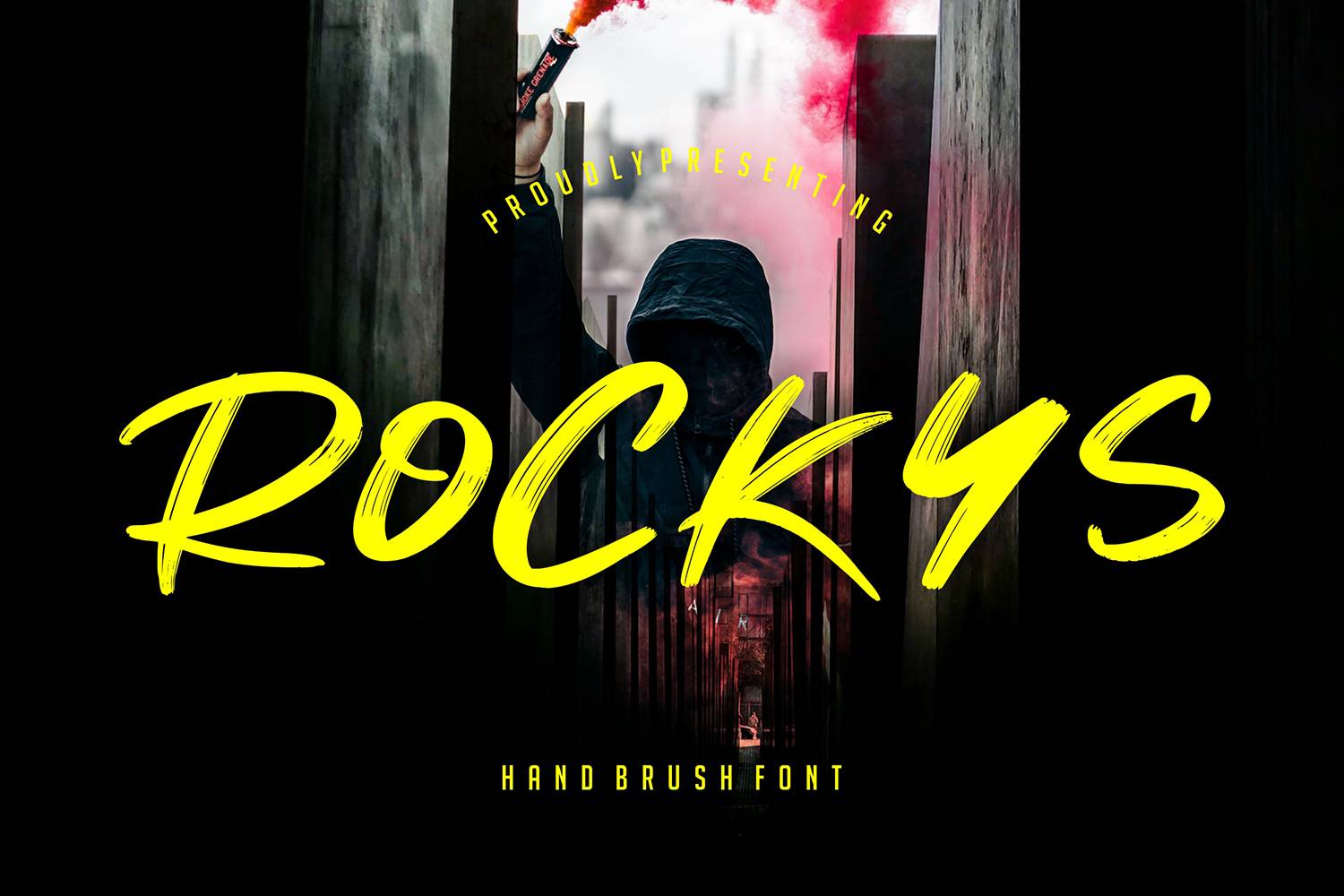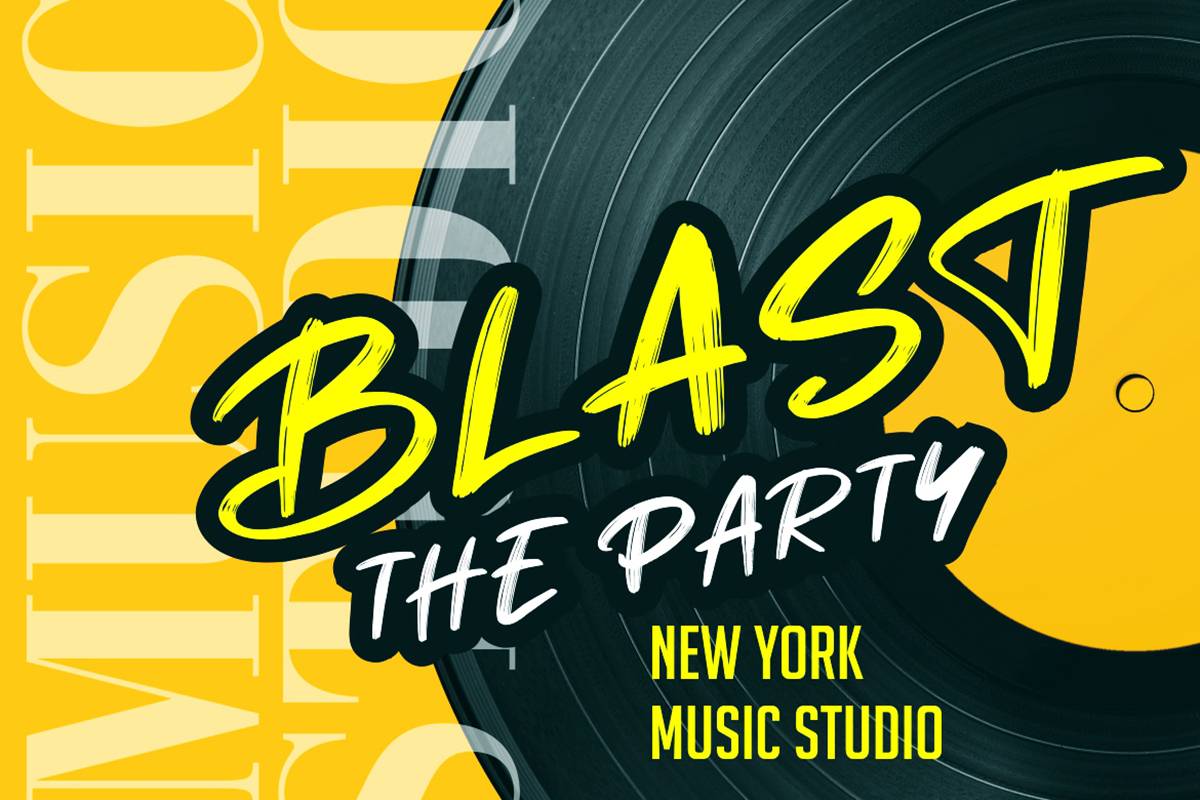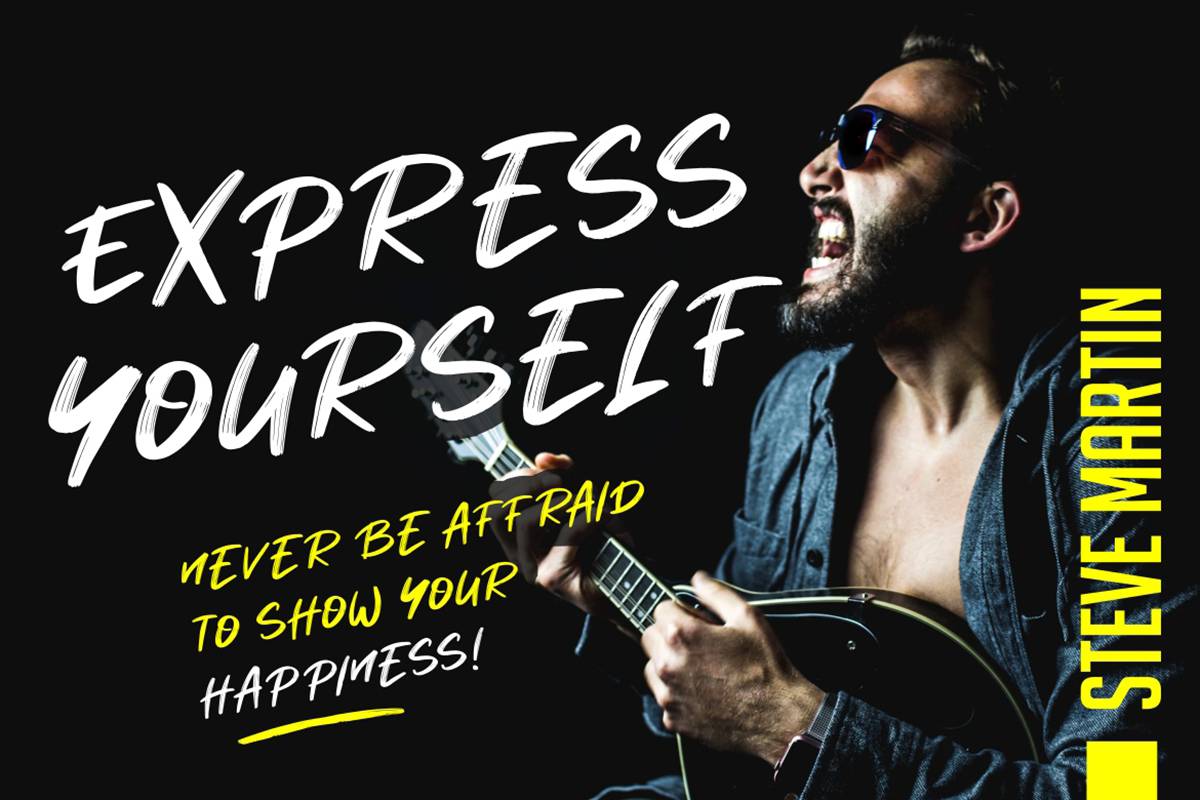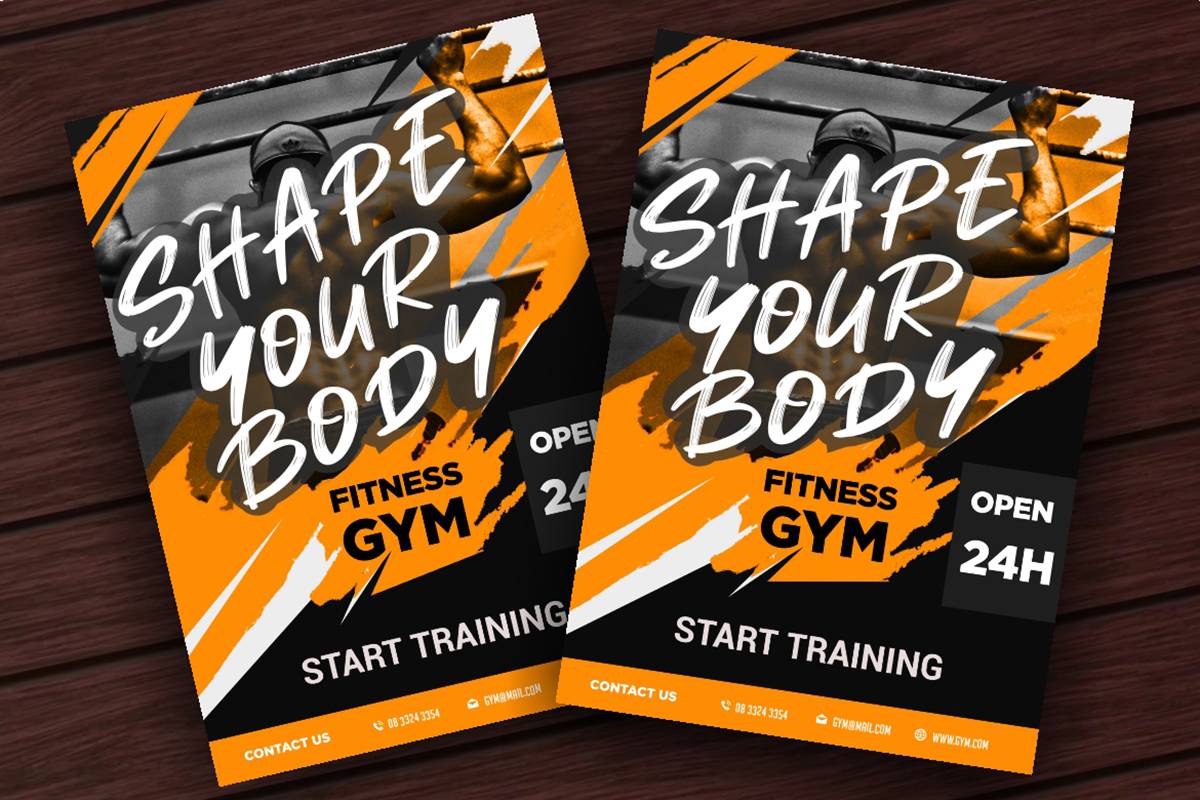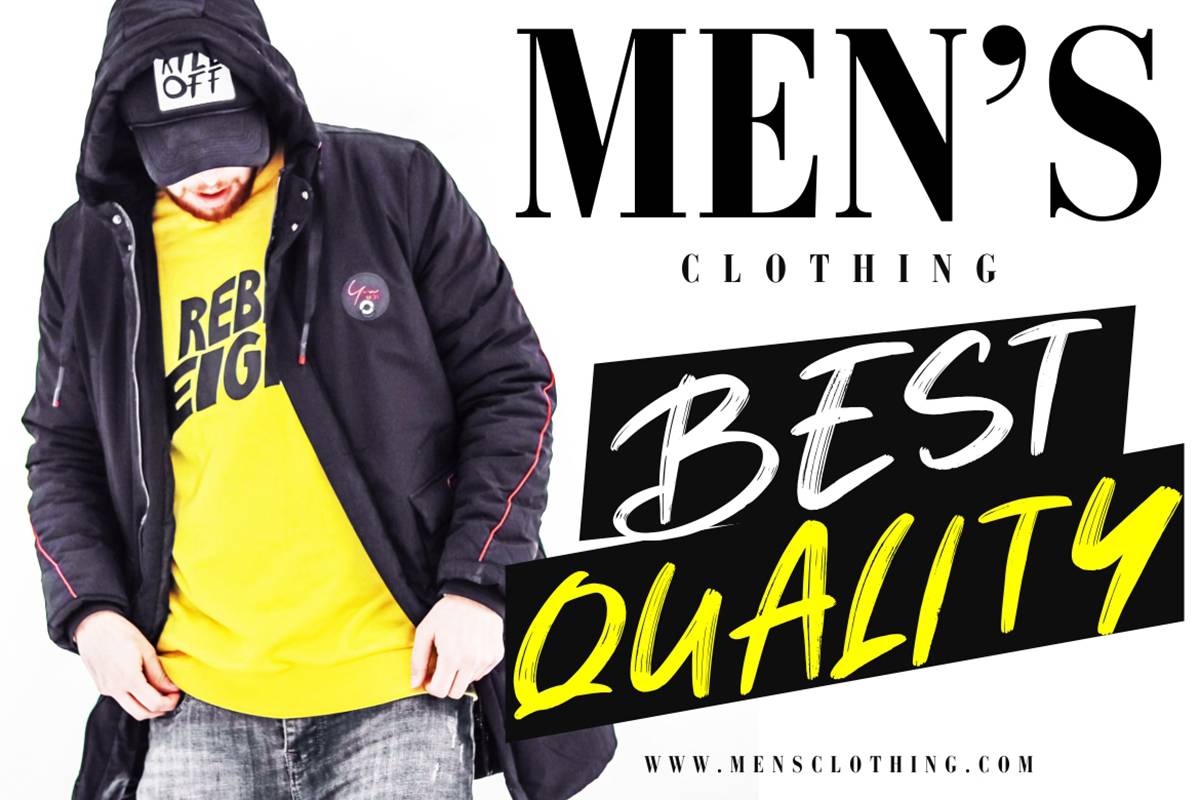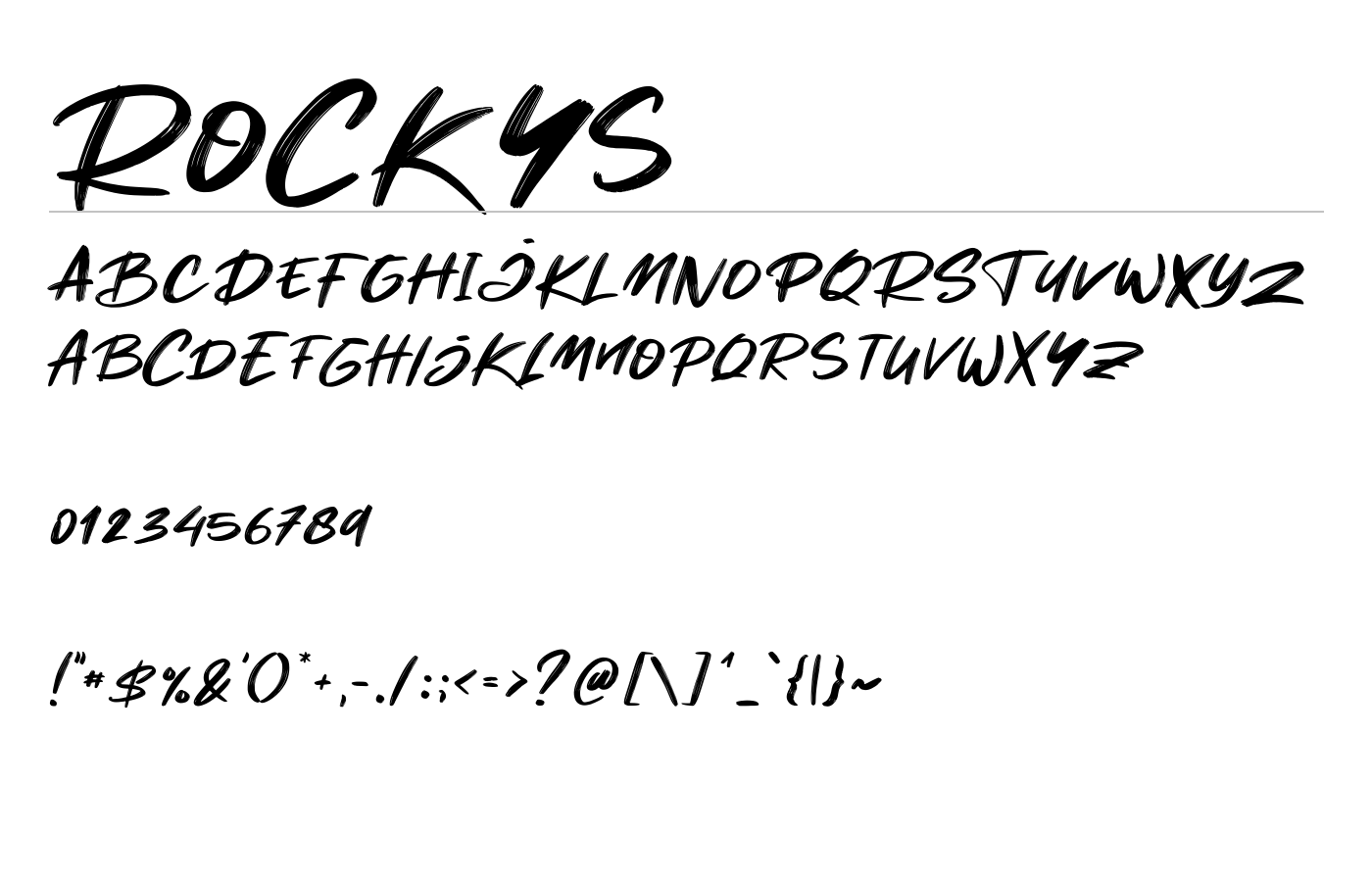
Rockys Font is a bold, energetic script typeface that mimics dynamic brush strokes, giving it a casual yet striking appearance. Its lively, slightly rough edges and tall, irregular letterforms convey a sense of creativity and personality, making it ideal for headlines, logos, and branding that want to stand out with a modern, handcrafted feel. This font works especially well in designs aiming for an informal, artistic, or adventurous mood.
Rockys Font
About Rockys Font